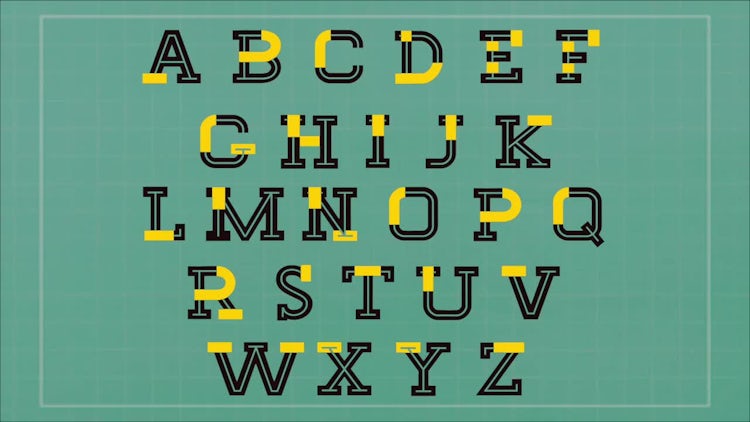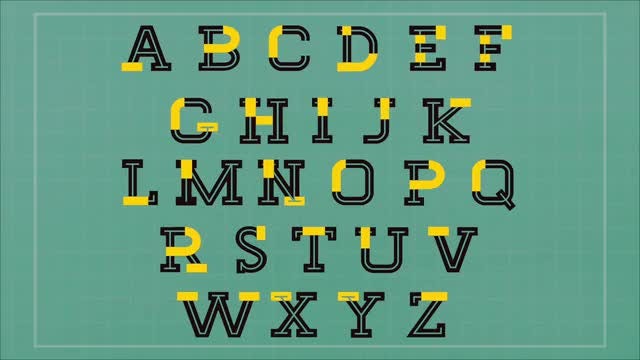
Animated Font by memodji
This motion graphics package contains a fun and funky animated designed alphabet with yellow and pink revealing color effects. To create full words, simply drag and drop them in your project and arrange as needed. Alpha channels included.